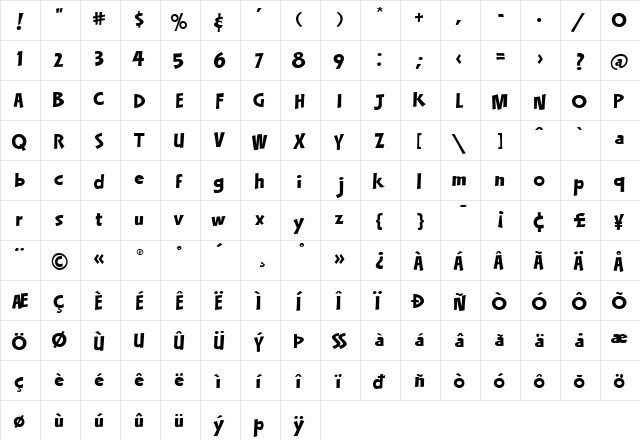
LHF Happy Fun Ball REG Regular
Design Context for LHF Happy Fun Ball REG Typeface
LHF Happy Fun Ball REG trades formality for fun, with bouncy, characterful letterforms that bring warmth and energy to any project.
Great for children's books, toy packaging, family event branding, and casual consumer-facing design.
Font Pairing: Pairs well with a rounded or humanist sans for body copy, maintaining the friendly tone without relying on LHF Happy Fun Ball REG to carry extended reading.
Pro Tip: Avoid using LHF Happy Fun Ball REG for long passages of text — it works best for headlines, labels, and short calls to action.